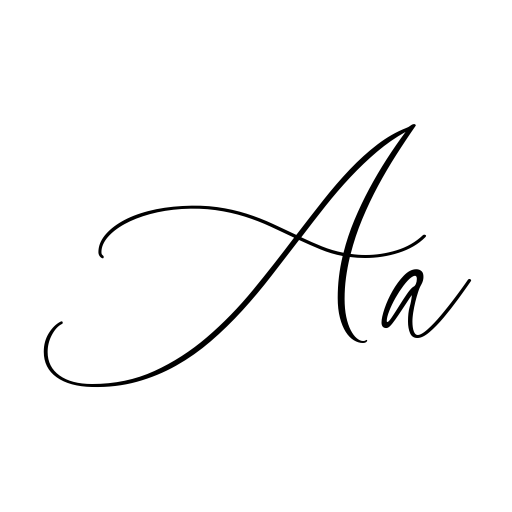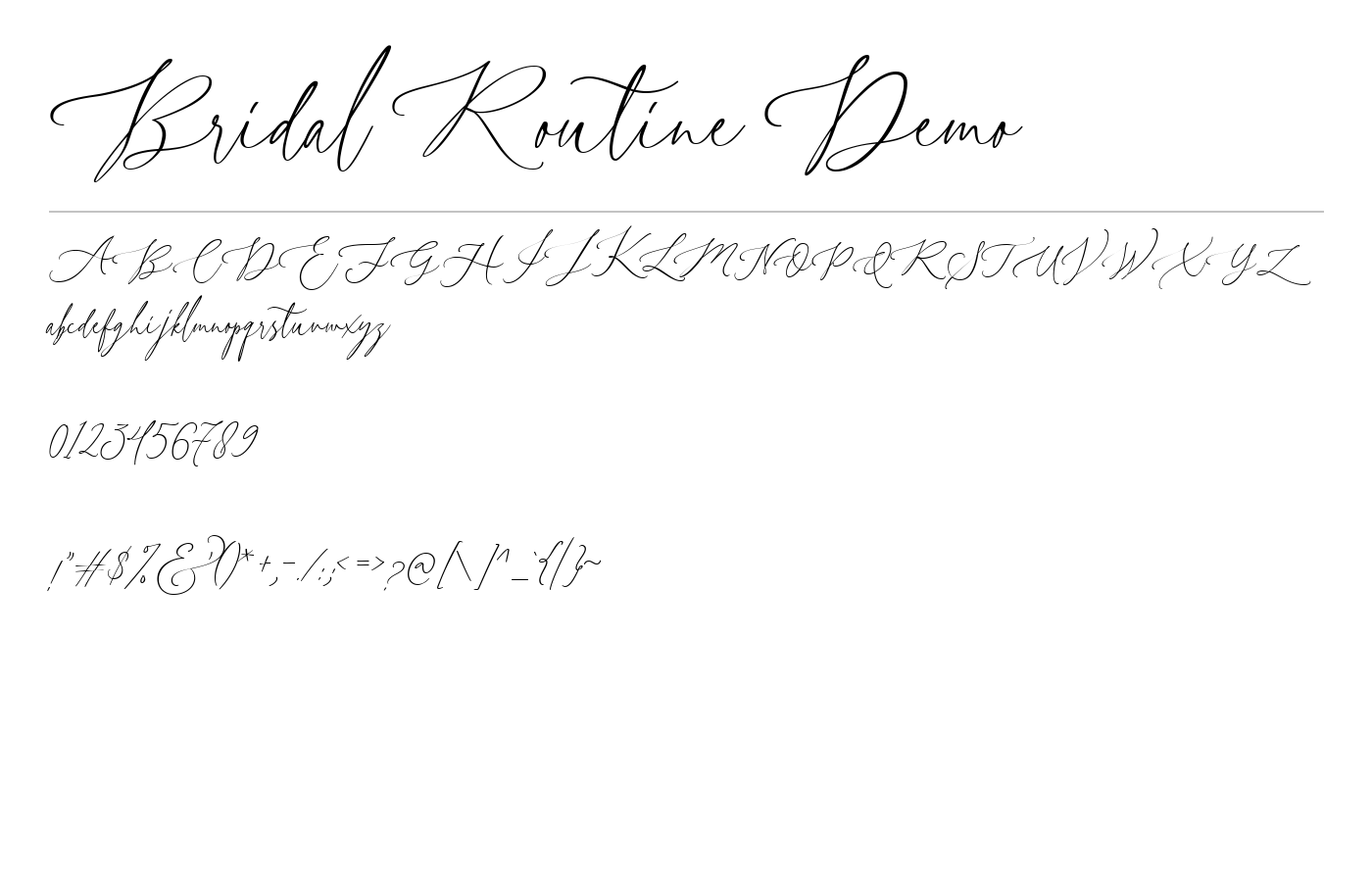
Bridal Routine Demo is a delicate, elegant script font characterized by its thin, flowing strokes and handwritten style. It exudes a romantic, sophisticated feel, making it ideal for wedding invitations, luxury branding, and feminine design projects. Its graceful letterforms add a personal, refined touch perfect for headlines, logos, and decorative use where an airy, stylish impression is desired.
Bridal Routine Demo Font
About Bridal Routine Demo Font
| Font family | Bridal Routine Demo Font |